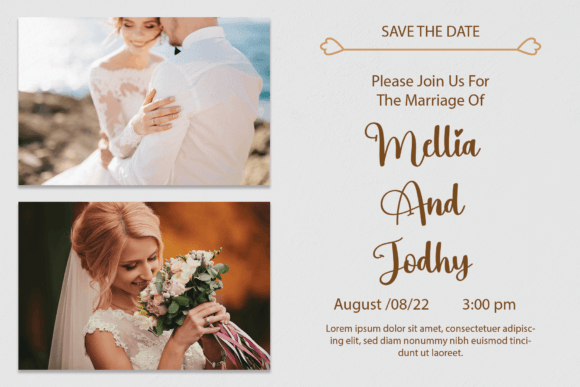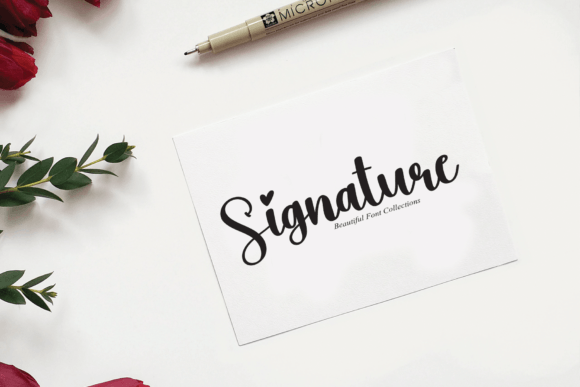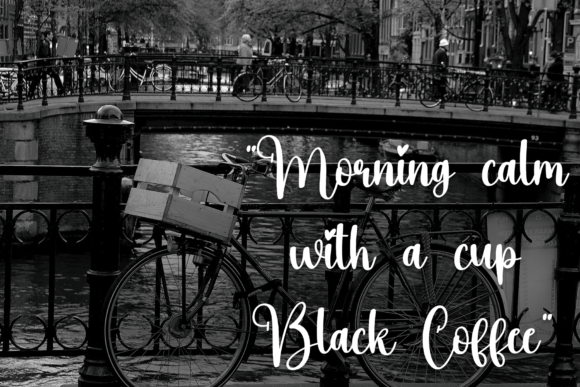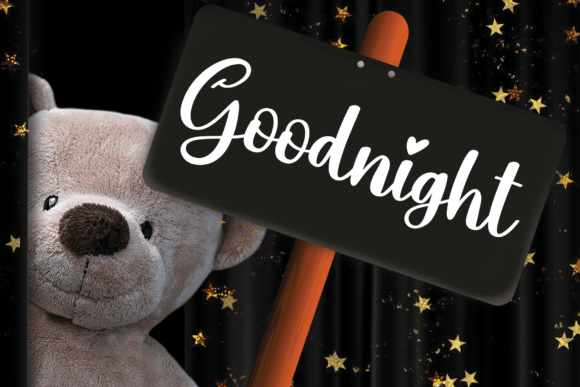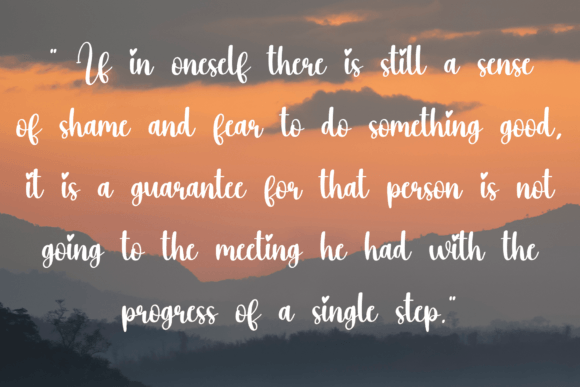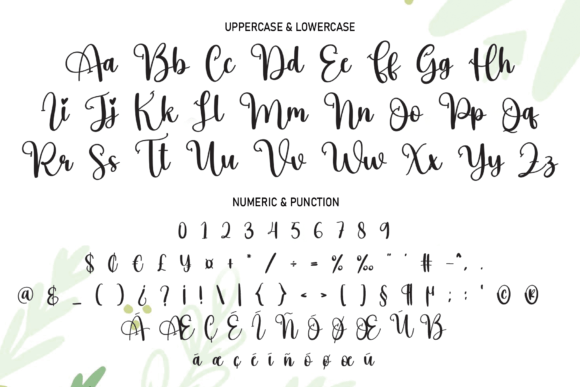
Unlock the Power of Handwritten Style with Active Font
You know that moment when a design idea strikes, and you can’t wait to bring it to life? For many creatives, that spark often starts with a font – the foundation of any visual project. And when it comes to adding a touch of personality, Active Font is the perfect choice. With its latest style letters, this versatile font is designed to elevate your designs and leave a lasting impression.
Whether you’re creating wall displays, wedding invitations, or social media post logos, Active Font’s unique handwriting style is sure to captivate your audience. Its value lies in its adaptability – it’s perfect for a wide range of projects, from advertisements and product packaging to product designs, labels, and photography. With Active Font, you can add a personal touch to any design, making it an invaluable asset for designers looking to stand out from the crowd.
Key Features of Active Font
- Size: The font family includes multiple weights, from Thin to Extra Bold, allowing designers to choose the perfect size for their project.
- Resolution: Active Font supports high-resolution displays, making it ideal for use in digital applications, including web design, mobile apps, and print materials.
- Unique Characteristics: The font features a dynamic, energetic feel, with subtle variations in letterforms that create a sense of movement and texture.
- Customization Options: The font includes a range of OpenType features, such as ligatures, swashes, and contextual alternates, allowing designers to add a personal touch to their work.
Active Font Review
Overall, I think the Active Font is a solid addition to any designer’s toolkit. Here are a few things that really work well:
- ✨ The font’s energy and dynamism make it perfect for headlines and titles, adding a sense of excitement to any project.
- ✨ The bold weights are particularly well-designed, with a nice balance of legibility and visual impact.
- ✨ The font’s versatility is also impressive, working well in both digital and print applications.
- ⚠️ The font can be a bit too loud and overpowering if used extensively throughout a project, so be sure to balance it with more subdued text.
- ⚠️ The font’s lowercase letters are not as well-designed as the uppercase letters, which can make for a slightly inconsistent look.
Overall, I think the Active Font is a great choice for designers looking to add some energy and excitement to their projects. Just be sure to use it thoughtfully and balance it with more subdued text to avoid overwhelming the viewer.
Alternatives to Active Font
Open Sans is a clean and modern sans-serif font, ideal for digital products and websites. It’s highly legible and works well in both body and heading text. Open Sans is a popular choice among designers due to its versatility and accessibility. Compared to Active Font, Open Sans has a more neutral tone and a slightly more geometric feel, making it suitable for a wider range of applications.
Montserrat is a geometric sans-serif font that exudes a sense of modernity and sophistication. It’s perfect for use in headings, titles, and body text where a strong visual impact is desired. Montserrat is similar to Active Font in its energetic and playful feel, but it’s more suited for high-contrast designs and bold typography.